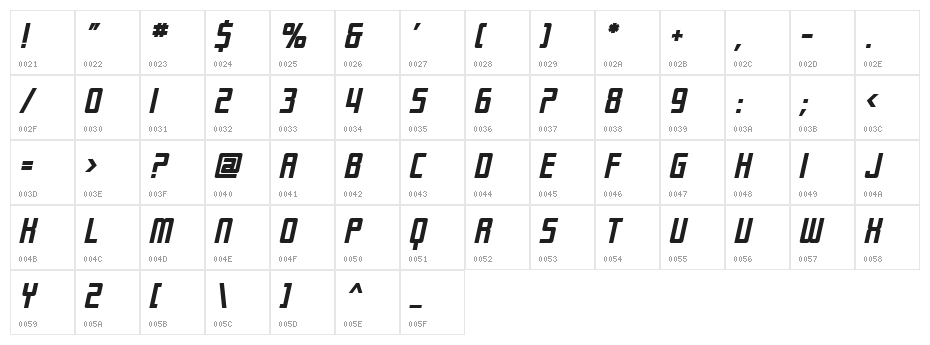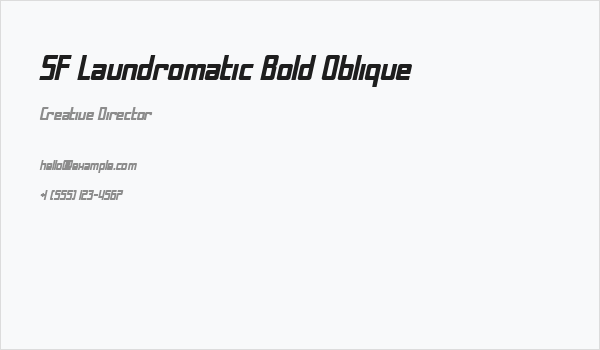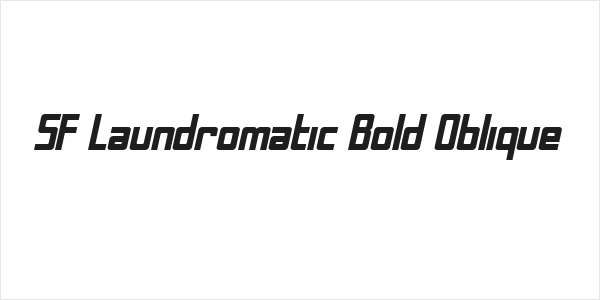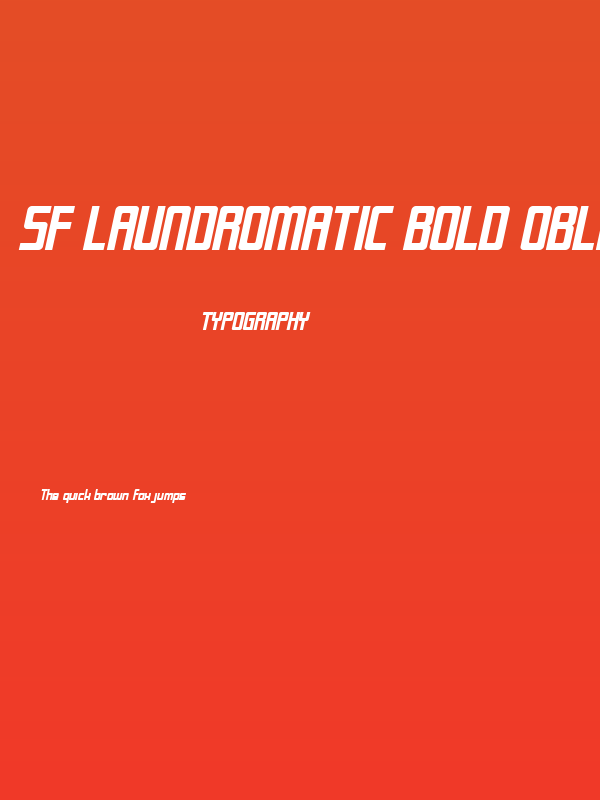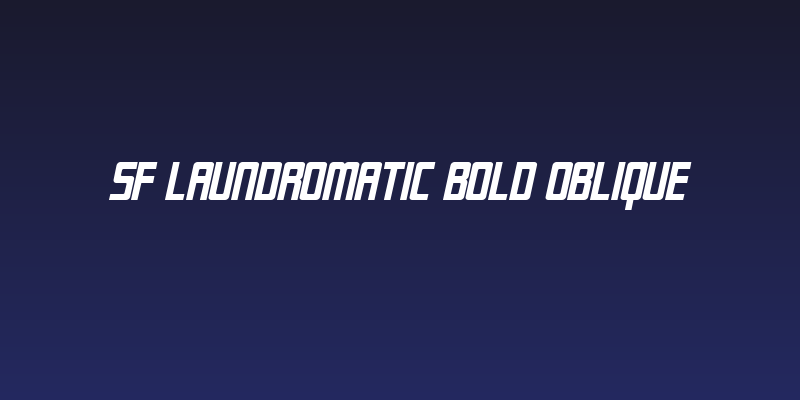
SF Laundromatic Bold Oblique Font
SF Laundromatic Bold Oblique Description
This font features a bold and oblique style with a modern and dynamic appearance. The characters are slightly slanted, giving a sense of motion and energy. The strokes are thick and consistent, providing a strong visual impact. The font maintains a geometric structure with sharp angles and clean lines, making it suitable for contemporary design projects. The uppercase and lowercase letters are well-proportioned, and the numerals are clear and legible. Special characters are included, enhancing its versatility.
| Proposed Projects | Ideal for sports branding, technology logos, dynamic posters, and modern advertising. |